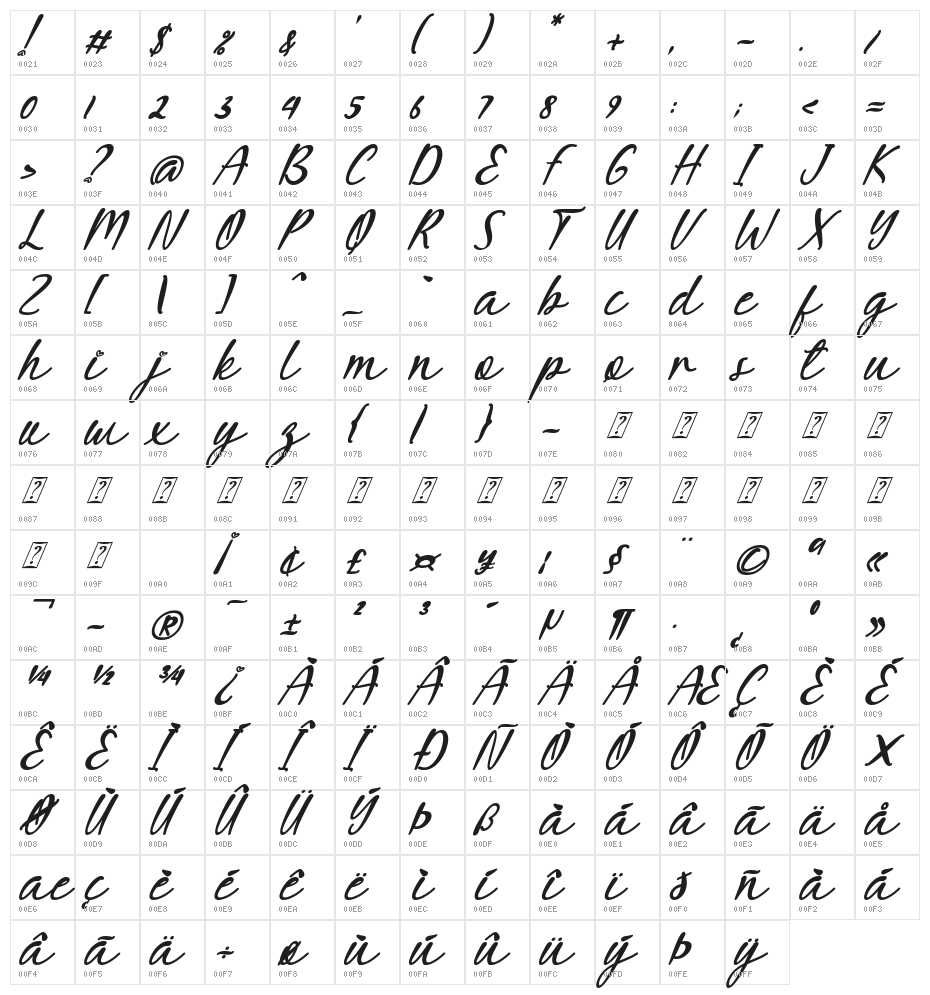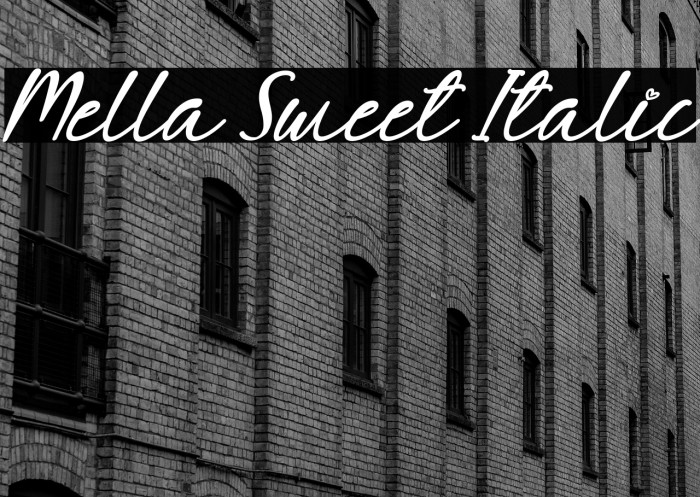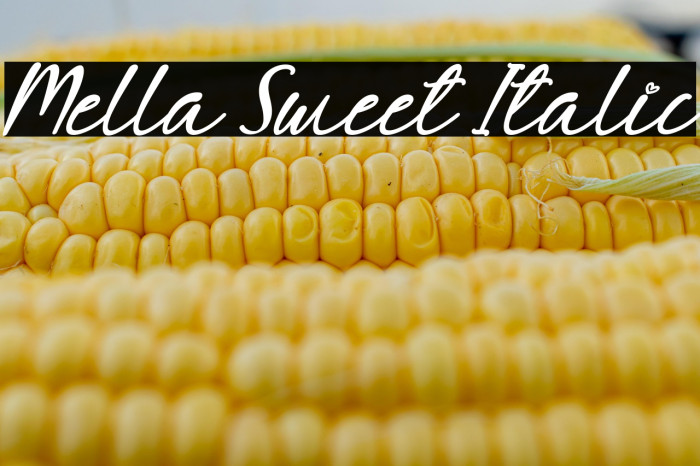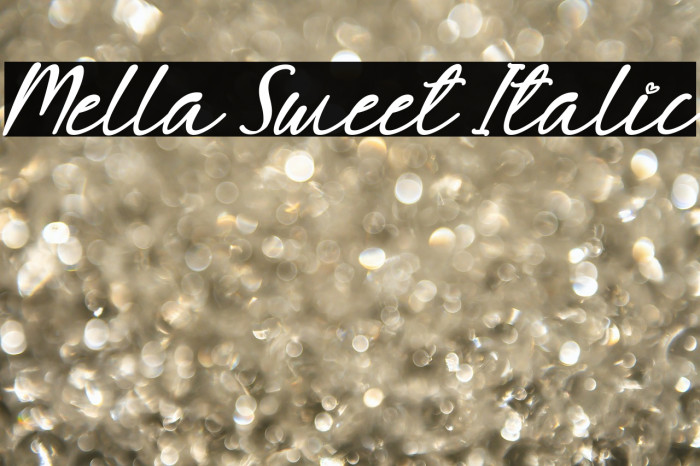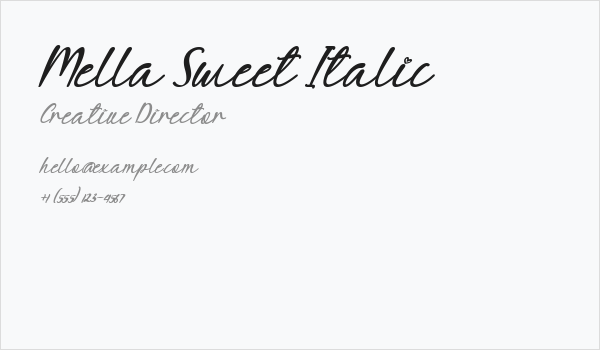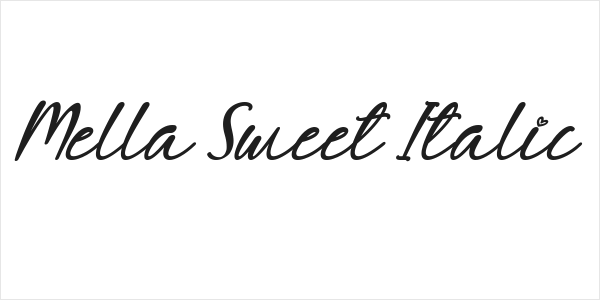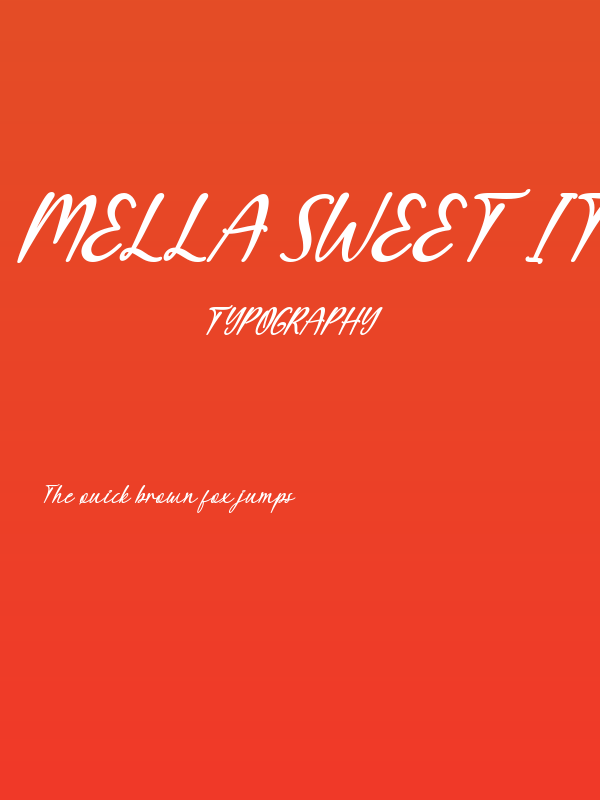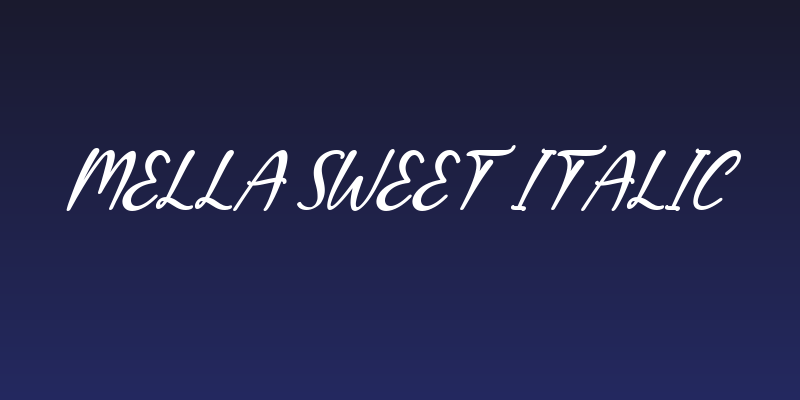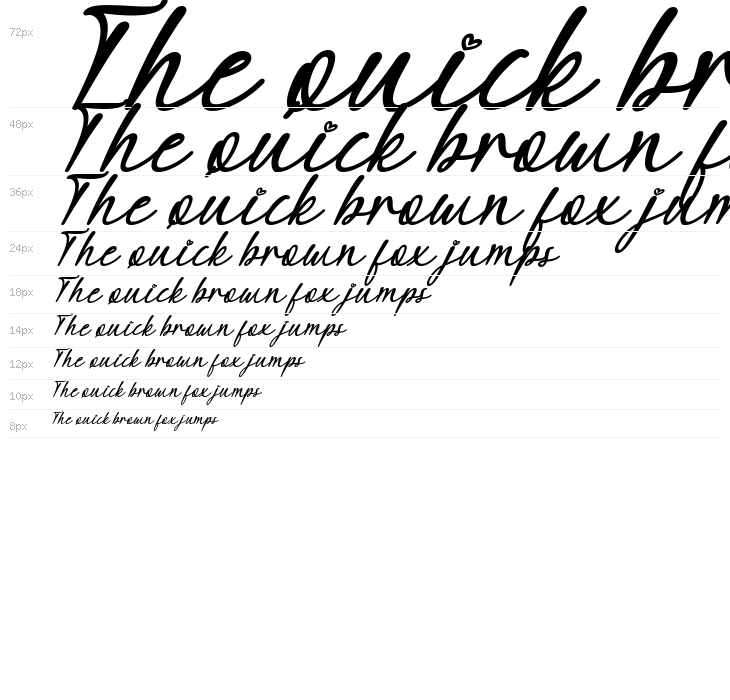
Mella Sweet Italic Font
Mella Sweet Italic Description
This font exhibits a fluid and elegant script style, characterized by its smooth, flowing lines and cursive connections between letters. The uppercase letters are bold and slightly slanted, giving a dynamic and lively appearance. The lowercase letters maintain a consistent slant, enhancing the cohesive and continuous flow of the text. The numerals are designed to match the script style, with a slight tilt and rounded edges that complement the overall aesthetic. Special characters are integrated seamlessly, maintaining the same fluidity and elegance. This font is ideal for projects that require a personal touch, such as invitations, greeting cards, or branding materials.
Overall StyleElegant, Decorative
Use CaseLogos, Invitations, Decorative text
Proposed ProjectsIdeal for wedding invitations, personal branding, greeting cards, and elegant packaging designs.